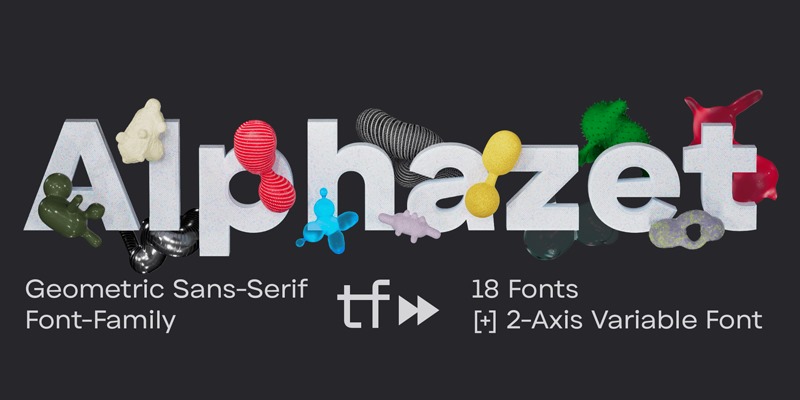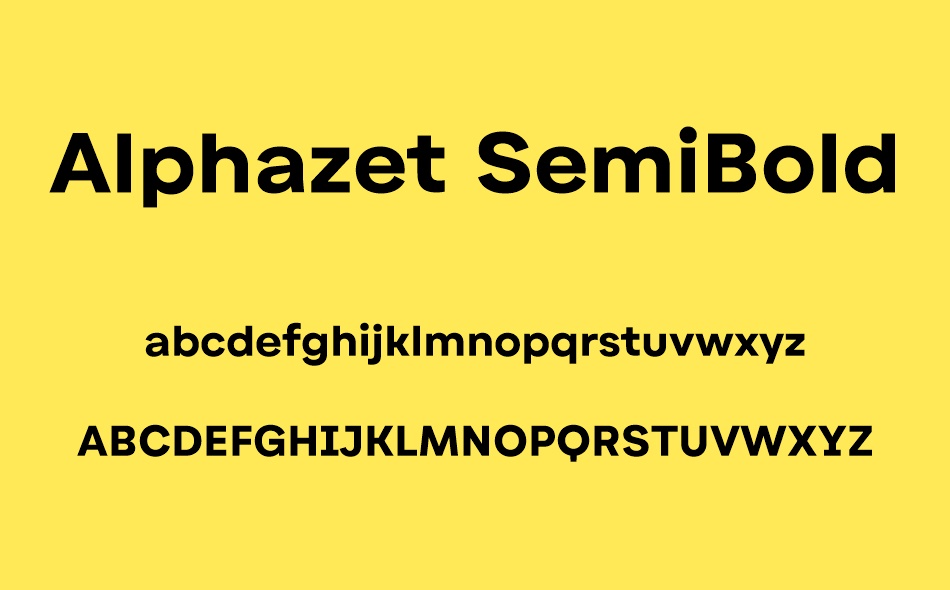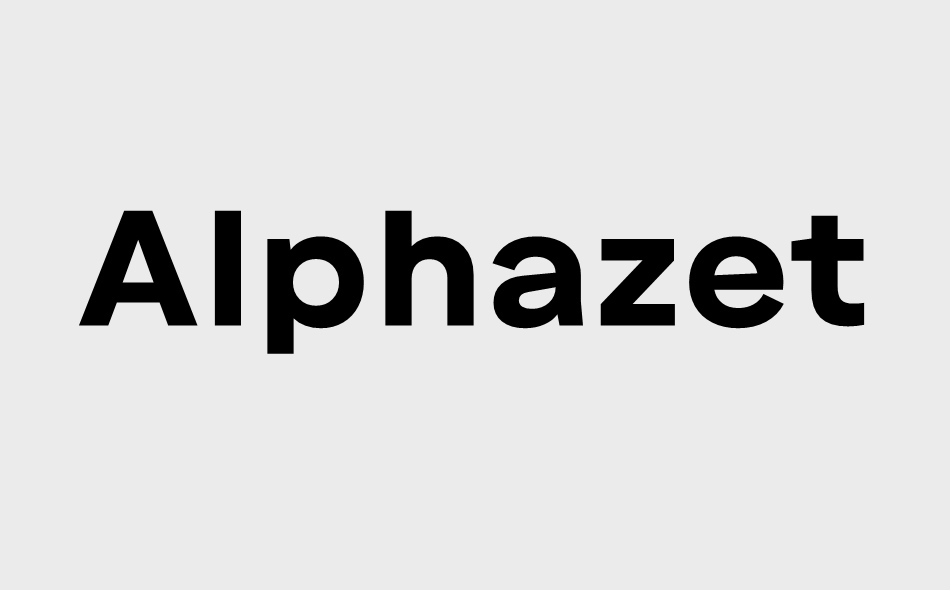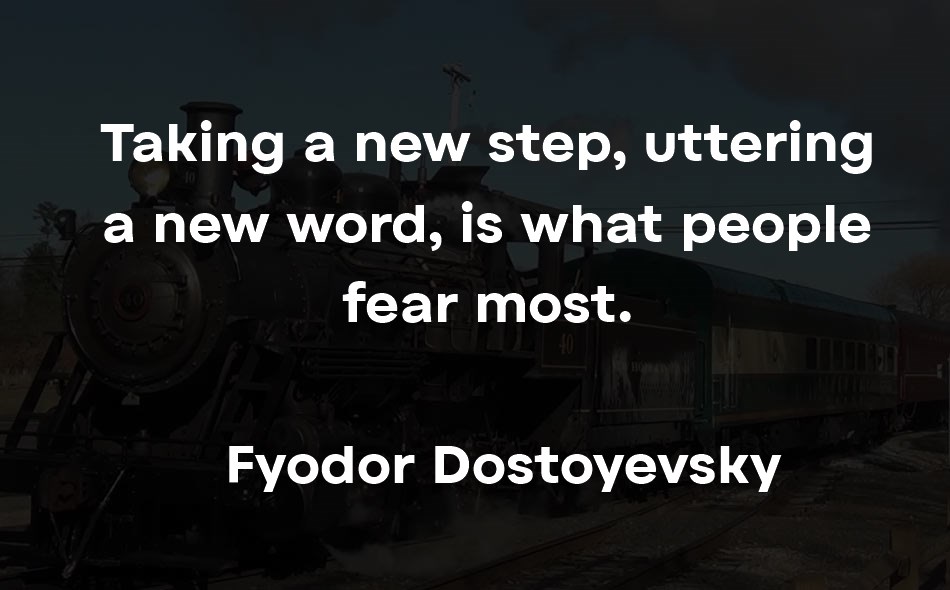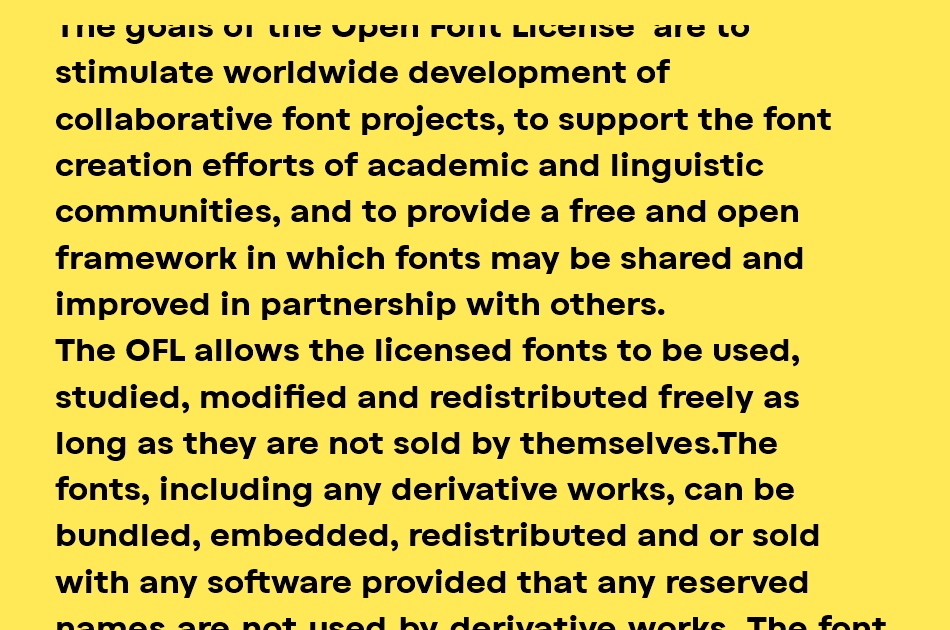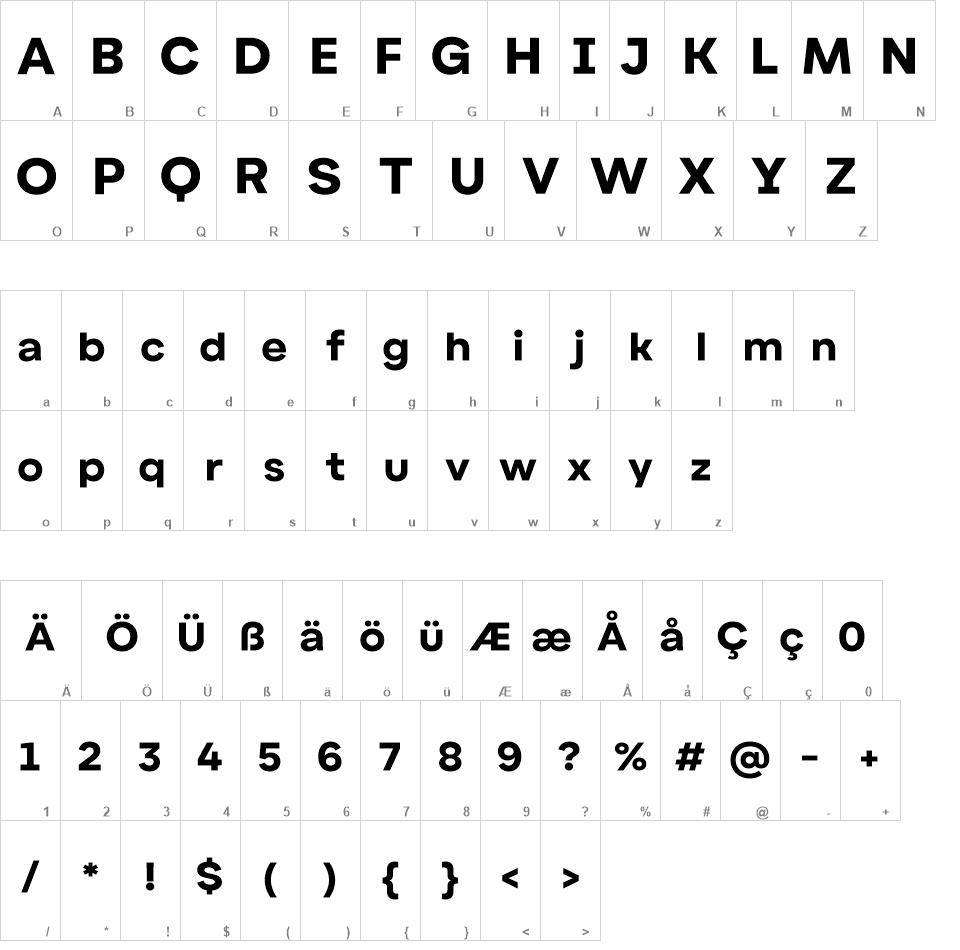
Alphazet font
It includes 9 weights with matching oblique italics, all available as a variable font. With broad language support, OpenType features, and well-balanced spacing and kerning, Alphazet works well in both body text and display settings.
Developed by Type Forward and Luboslav Boyanov, Alphazet is based on geometric principles and designed for practical use. Its high x-height and stable proportions support legibility across a range of sizes. The typeface performs reliably in both extended reading and short, impactful text.
Alphazet is constructed from simple geometric forms, focusing on consistency and space efficiency. Short ascenders and descenders make better use of vertical space, and consistent weight distribution ensures uniform text color. The design avoids decorative details, maintaining a steady rhythm across lines.
The family includes 9 weights (Thin to Black), each with matching oblique italics. It is available in OTF, TTF, web formats, and as a single variable font file for flexible use. Alphazet suits a range of applicationsfrom body text to headlines. Its proportions and spacing support readability at small sizes, while its structure remains strong at larger scales, such as in signage and posters.